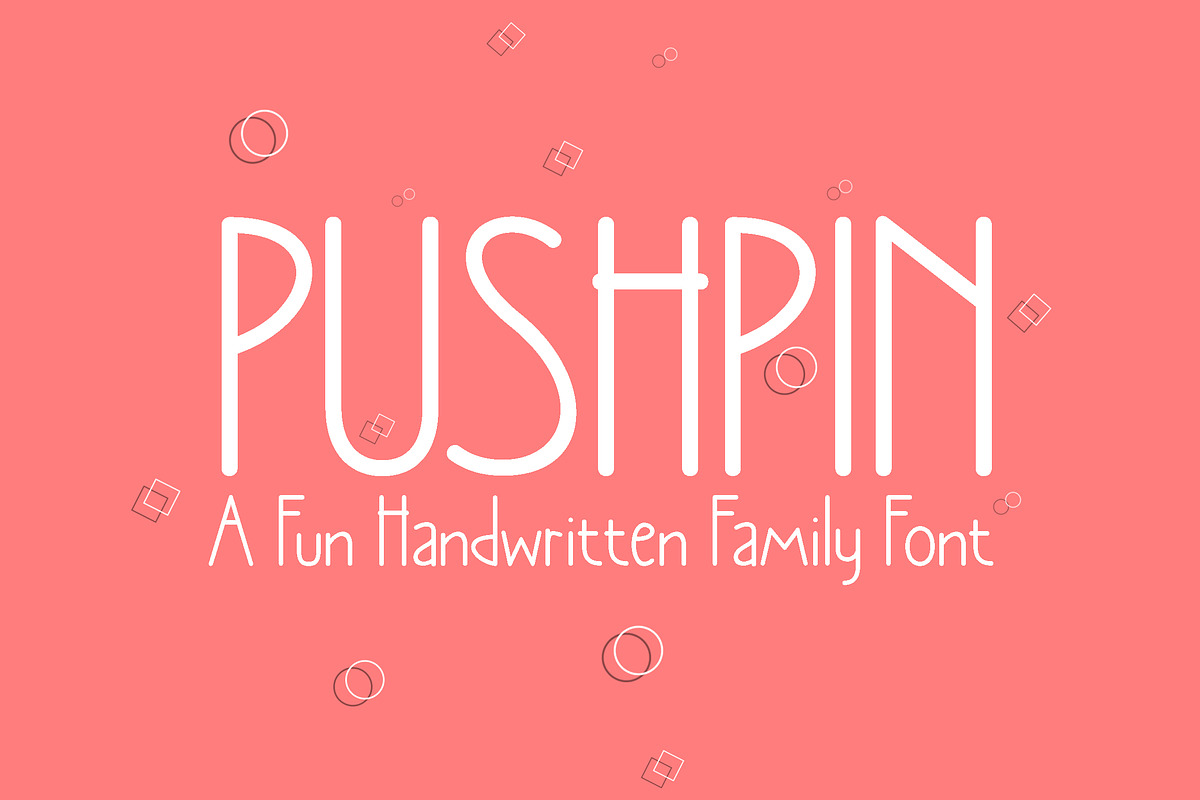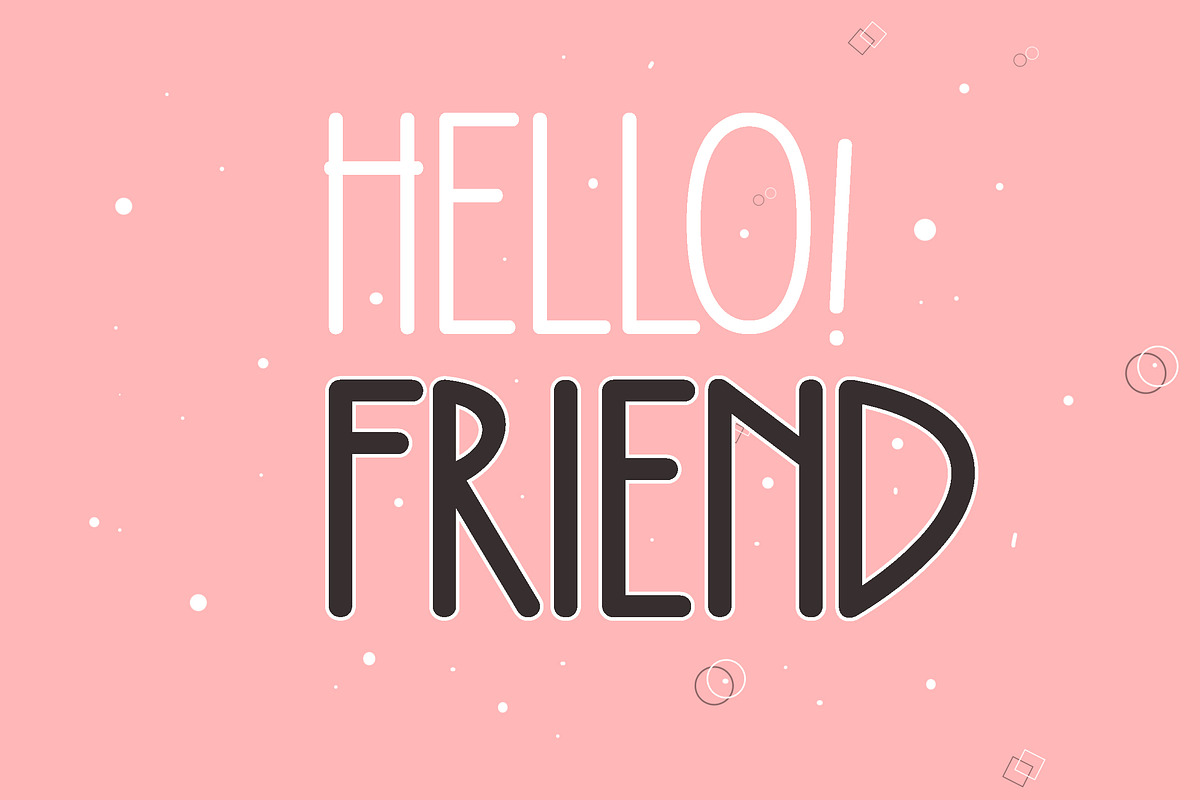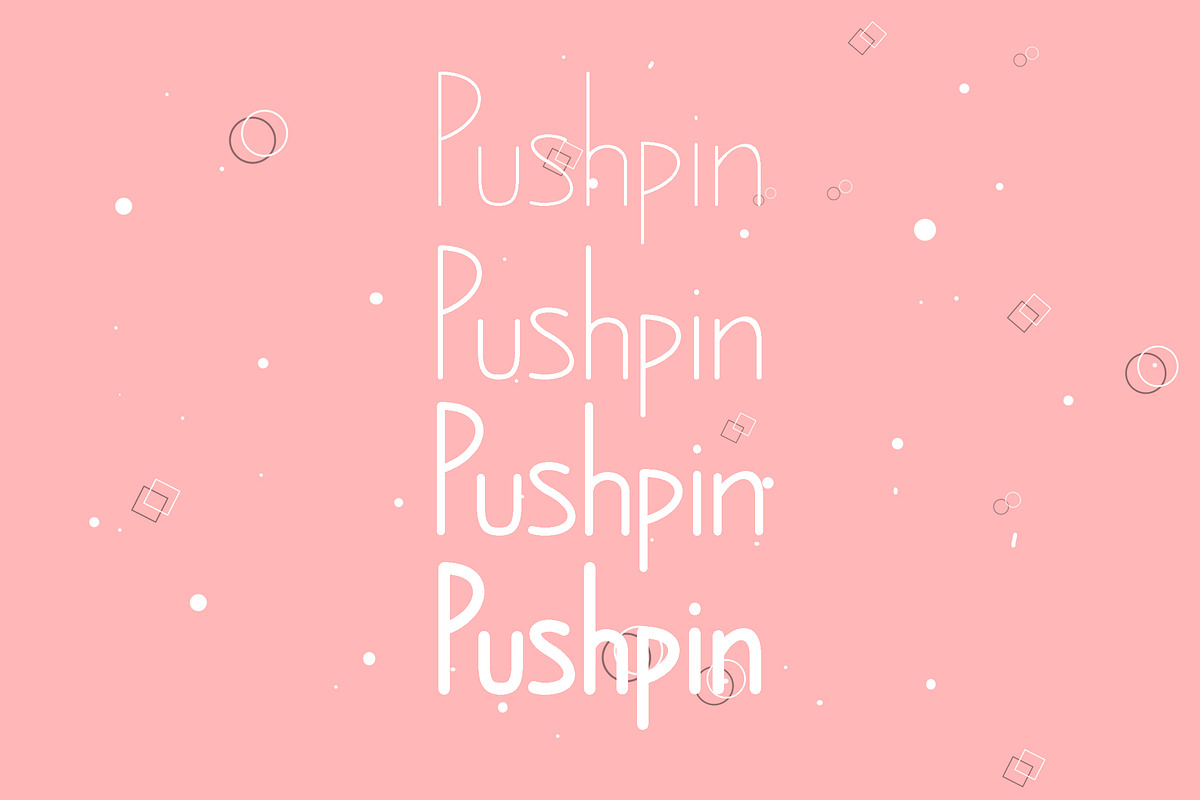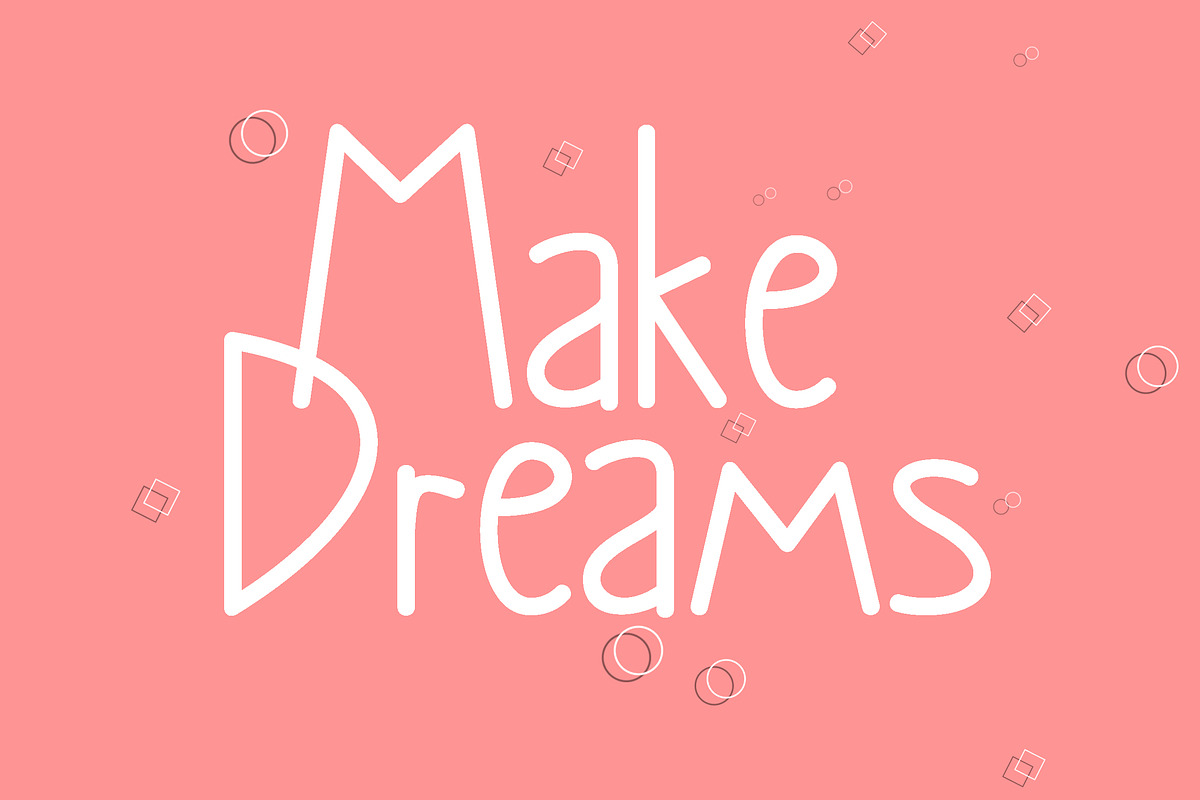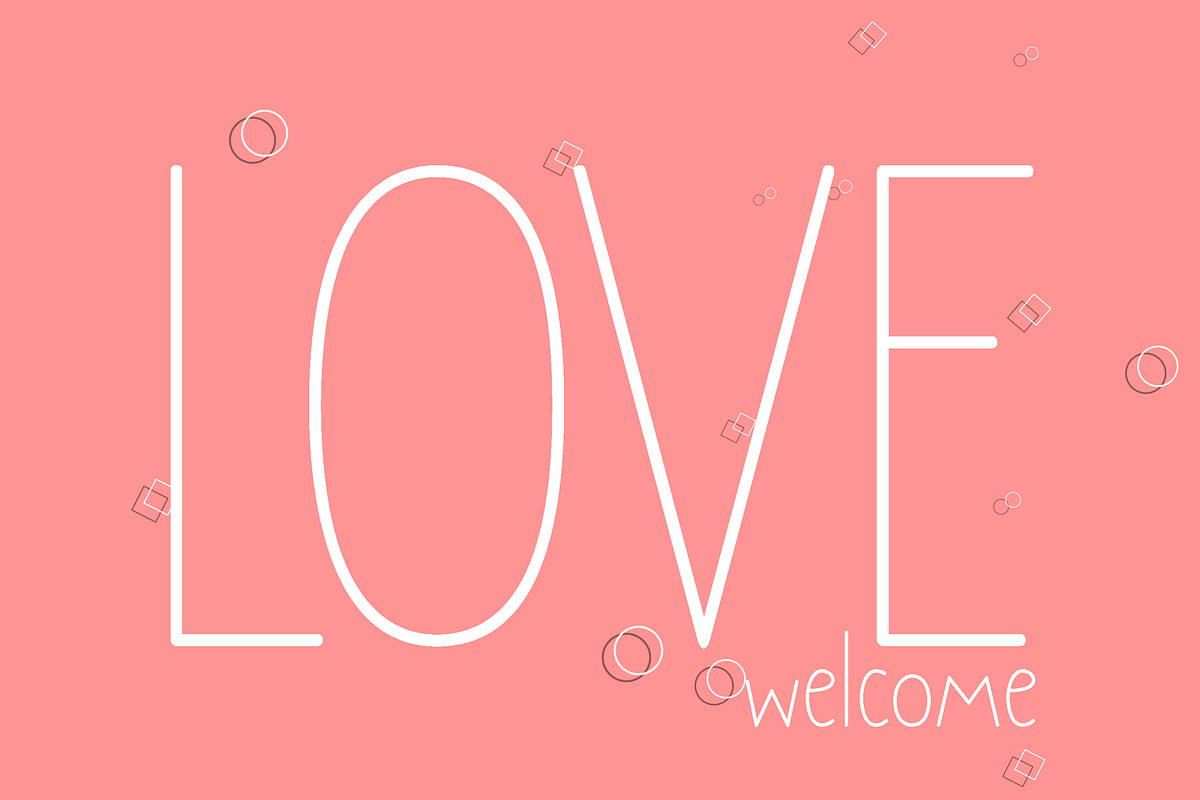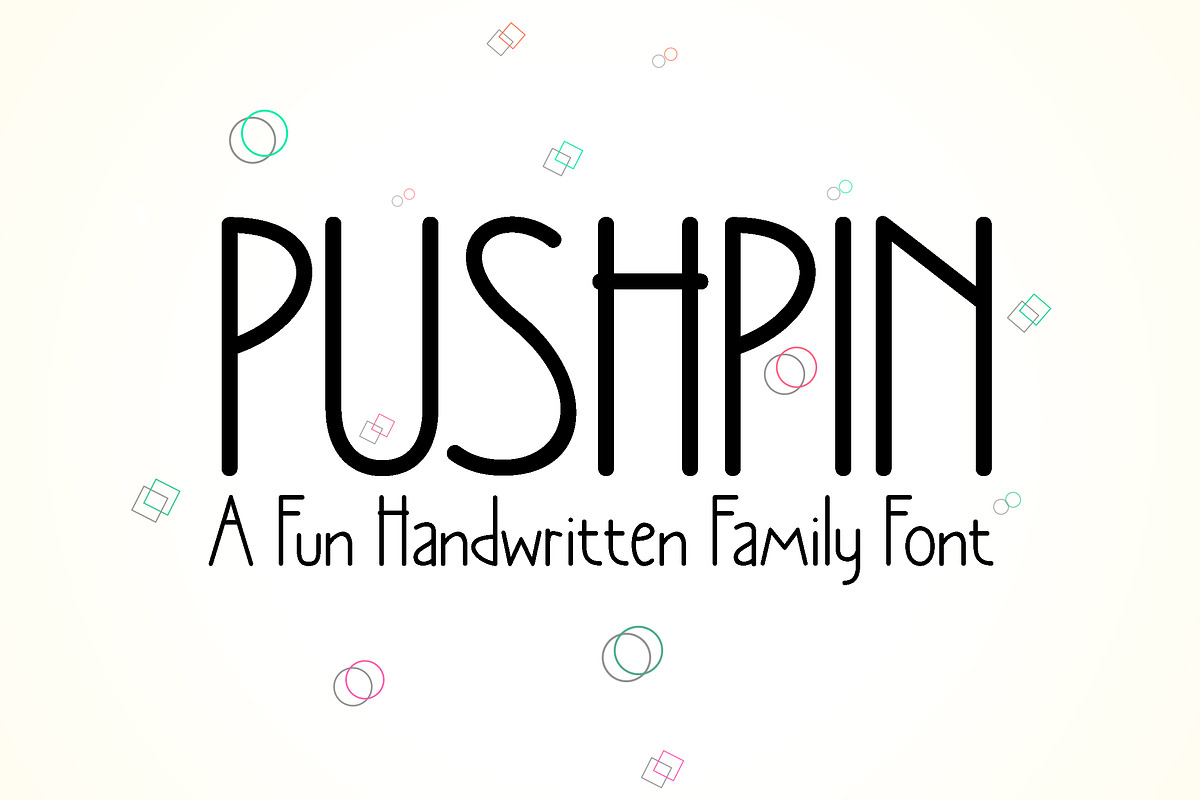
Pushpin a modern and friendly
Pushpin a modern and friendly sans-serif font, is a delightful blend of whimsy and simple. Its playful curves and rounded edges bring a sense of warmth to any design. Make your mark with this charming and refined font.